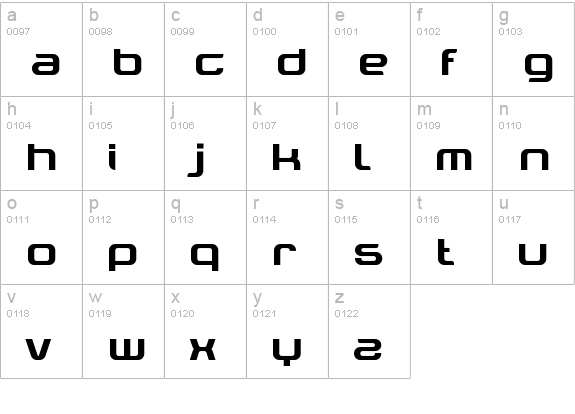
Tektrron Regular Font Details
Tektrron Regular is the standard, neutral variant in the Tektrron typeface family \xE2\x80\x94 well suited to general body text, paragraphs, and standard typographic work.
Tektrron Regular font is a sleek and modern typeface that exudes professionalism and sophistication. With its clean lines and geometric shapes, this font is perfect for a wide range of design projects, from branding and advertising to web and print materials. The versatility of Tektrron Regular font allows it to be used in both headlines and body text, making it a great choice for creating cohesive and visually appealing designs. Its balanced proportions and legible letterforms ensure readability across various sizes and mediums. One of the best features of Tektrron Regular font is that it is available for free. Yes, you read that right - this high-quality font can be downloaded at no cost! FontsMarket.com is the place to go to easily access and download this amazing font. Whether you are a professional designer or a hobbyist, the availability of Tektrron Regular font for free makes it an accessible choice for all. So why wait? Enhance your design projects with Tektrron Regular font and experience the elegance and versatility it brings. Visit FontsMarket.com today and get your hands on this outstanding font without spending a penny.